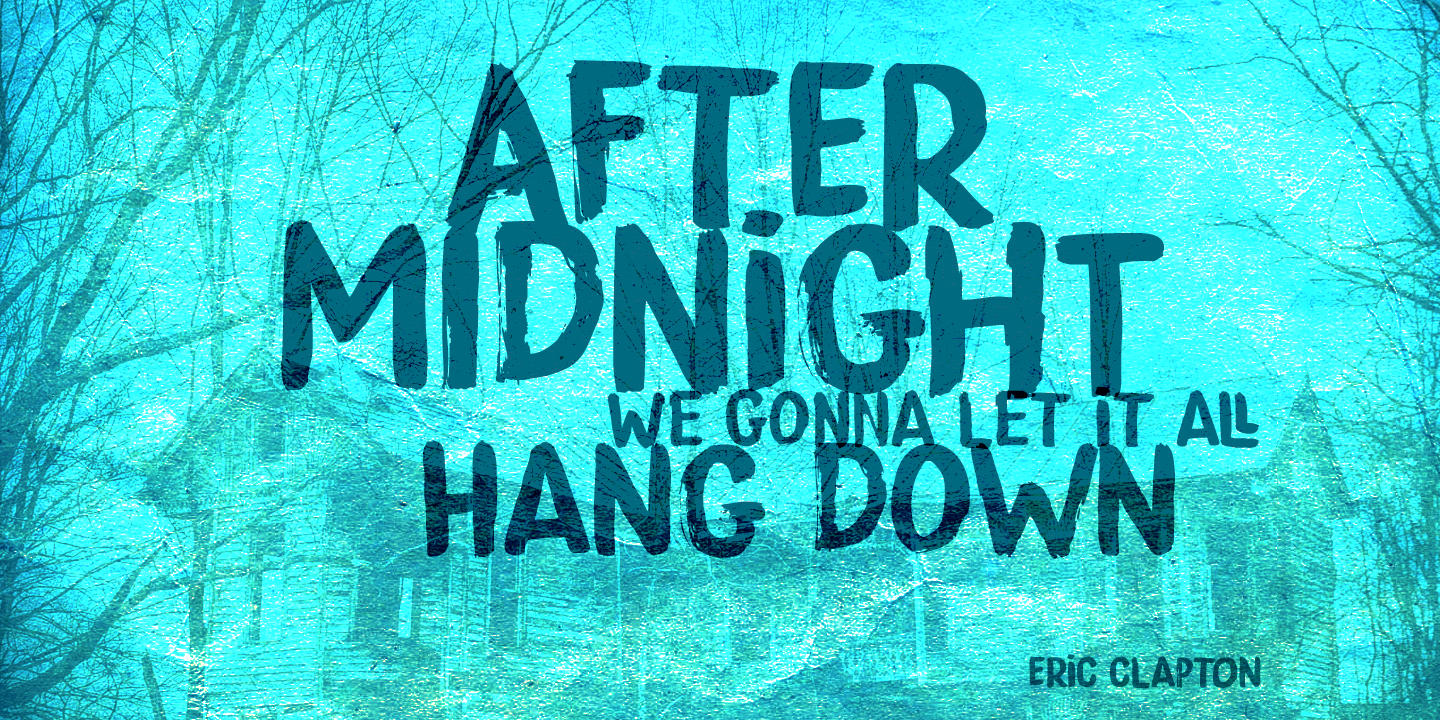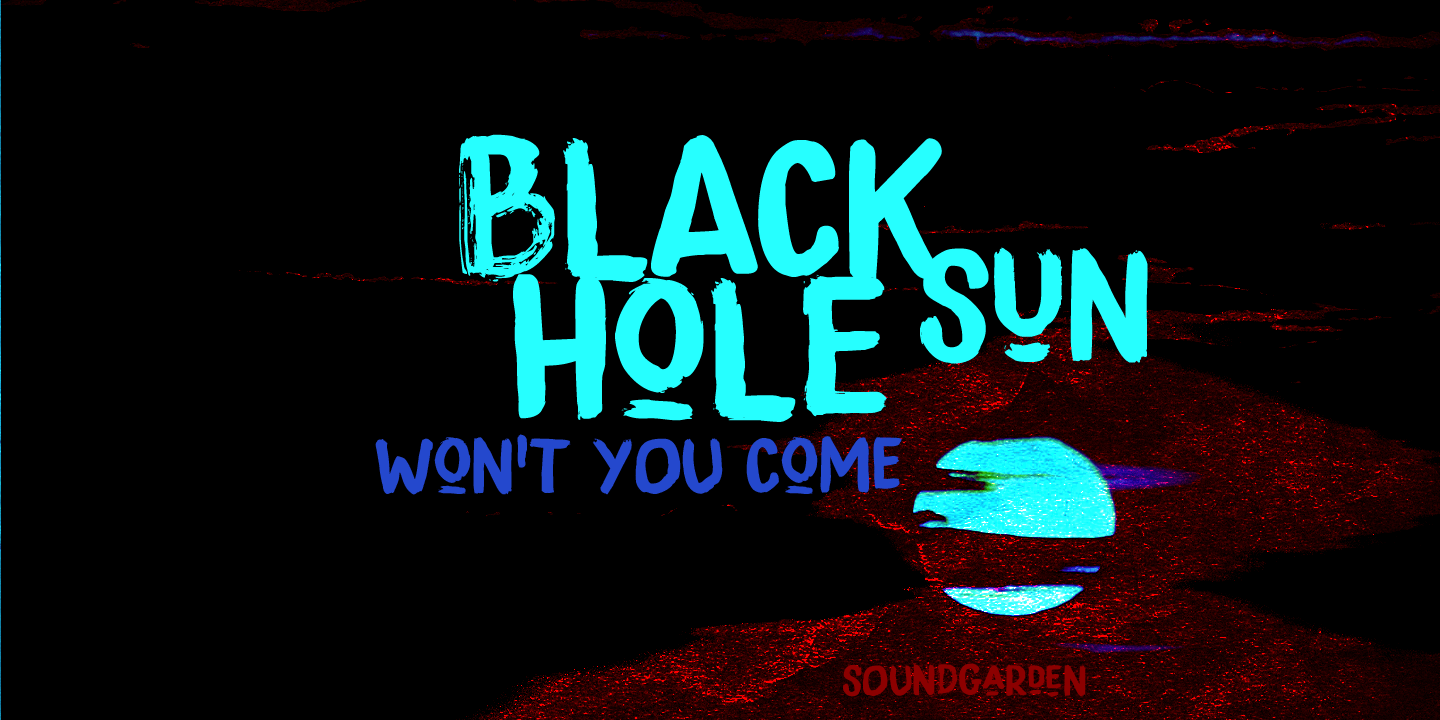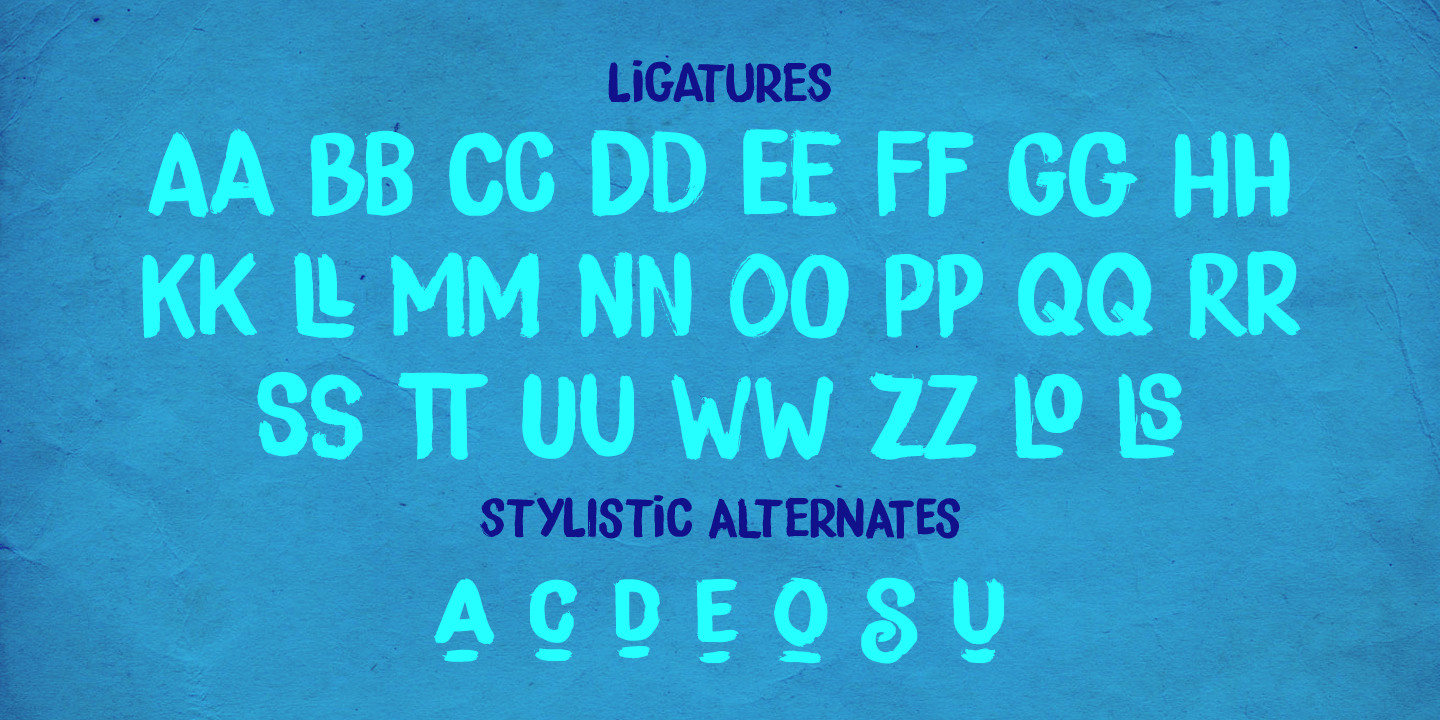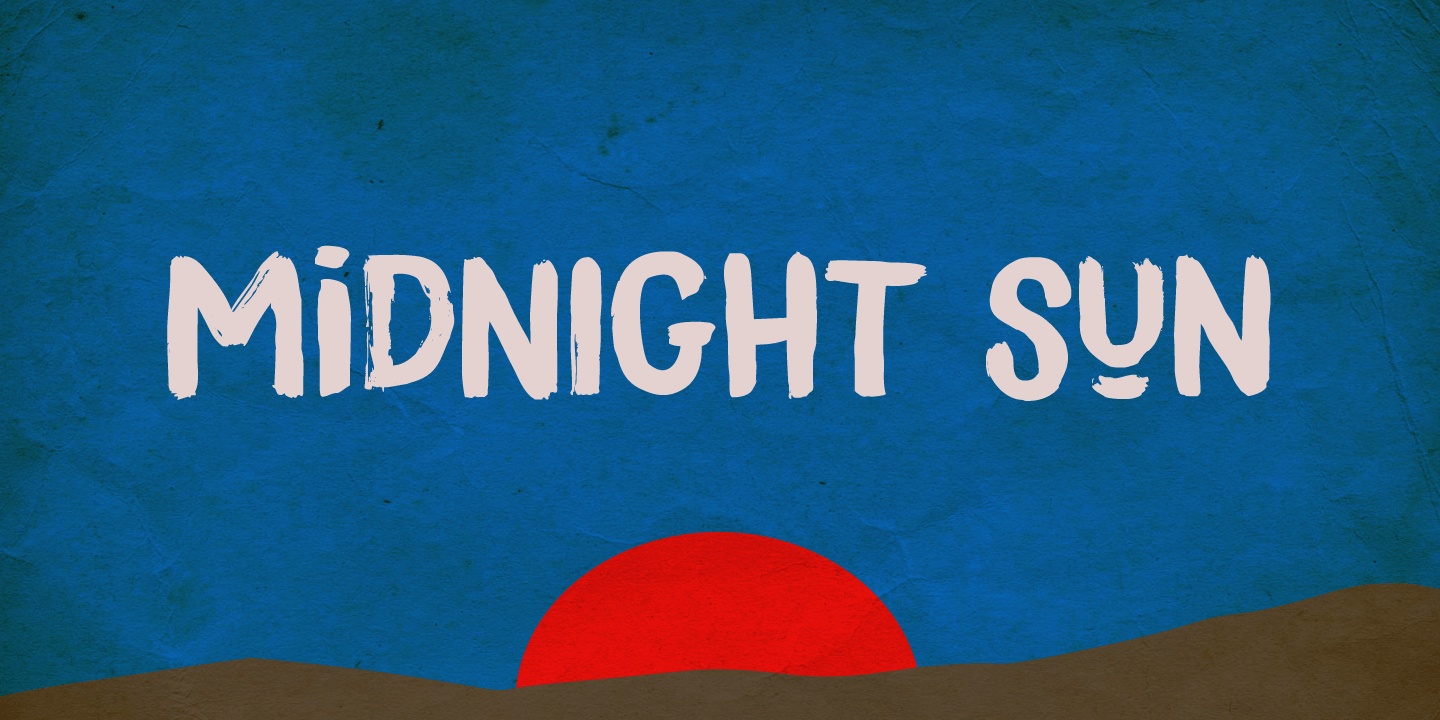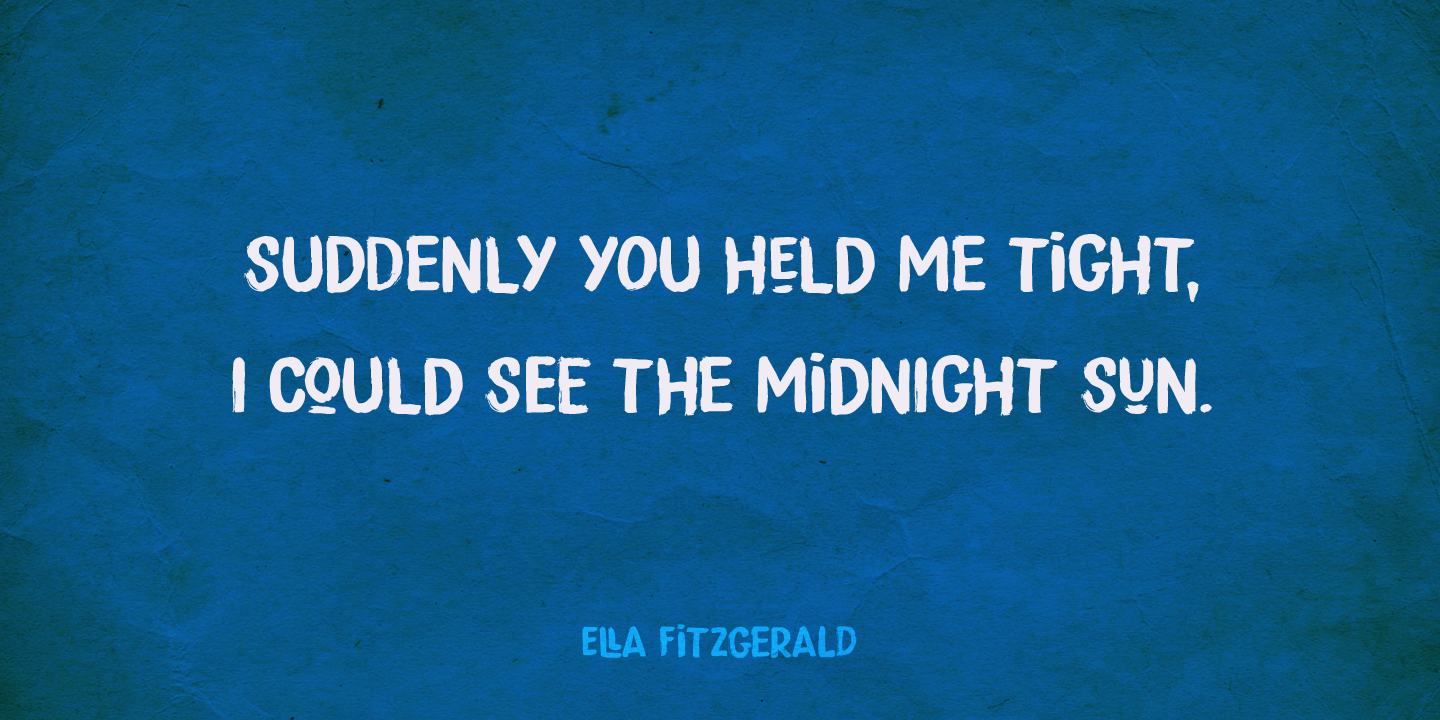
Midnight Sun
About Midnight Sun
Midnight Sun, despite its rough look, was carefully painted. I used a very cheap brush with stuck-together bristles to get that ?eroded? look. Midnight Sun comes with double letter ligatures and some really cool stylistic alternates as well.